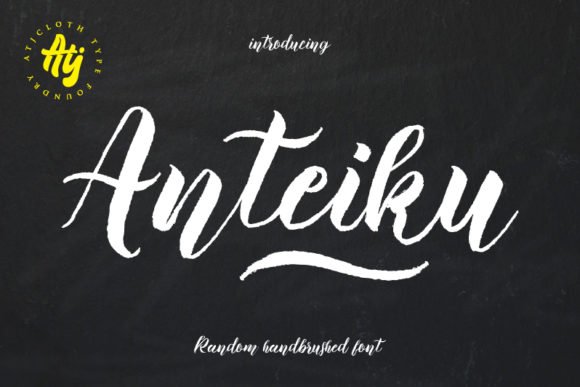
The Perfect Brush for Your Next Design Project
Remember that moment when you were brainstorming ideas for your next design project and you couldn’t quite capture the feeling you wanted to convey? You were stuck between perfection and a little bit of imperfection, a dash of human touch. That’s where the magic of handwritten fonts comes in.
Introducing Anteiku Font, a beautiful, textured brush font that adds a natural, organic feel to your designs. Its unique irregular baseline is the perfect blend of elegance and imperfection, giving your typography a unique personality. With Anteiku Font, you can add a touch of hand-drawn charm to your designs, making them stand out from the crowd.
For designers, Anteiku Font is a valuable addition to their toolkit. It offers a refreshing change from the usual sans-serif fonts, allowing you to express your creativity and add a personal touch to your work. Whether you’re designing a logo, a brochure, or a website, Anteiku Font is sure to bring a new level of sophistication and style to your designs.
Anteiku Font Key Features
- Font Family: Anteiku Font is a Japanese font family designed specifically for use in manga and comics.
- Character Set: Supports a large range of characters, including Japanese kanji, hiragana, and katakana scripts, as well as Latin characters.
- Unique Characteristics: Features a distinctive, hand-drawn style and a wide range of expressions, making it suitable for use in manga, comics, and graphic novels.
Anteiku Font Review
Overall, I’m really impressed with the Anteiku Font. It’s a unique and stylish font that adds a touch of elegance to any design project.
- The font’s distinct Japanese-inspired design is both beautiful and distinctive.
- The font is highly versatile and can be used for a wide range of applications, from logos to body text.
- The font’s subtle imperfections and nuances give it a sense of handcrafted quality that’s hard to replicate with more generic fonts.
- The font includes a wide range of languages and characters, making it a great choice for global projects.
- The font’s unique design may not be to everyone’s taste, and some users may find it too ornate or distracting.
- The font’s lack of bold weights and condensed styles may limit its use in certain applications, such as headlines or titles.
The Anteiku Font is a high-quality, unique font that’s perfect for designers looking to add a touch of sophistication and elegance to their projects. While it may have some limitations, its strengths far outweigh its weaknesses, making it a great addition to any designer’s font collection.
Tips for Getting the Most Out of Anteiku Font
Anteiku Font is ideal for creating a unique and nostalgic look. To get the most out of it, try pairing it with bold fonts or using it for headings and titles. Experiment with different font sizes and colors to create a visually appealing design.
Anteiku Font is commonly used for:
- Creating a vintage or retro aesthetic
- Designing menus or signage for restaurants or cafes
- Creating invitations or event graphics
- Adding a touch of nostalgia to digital designs